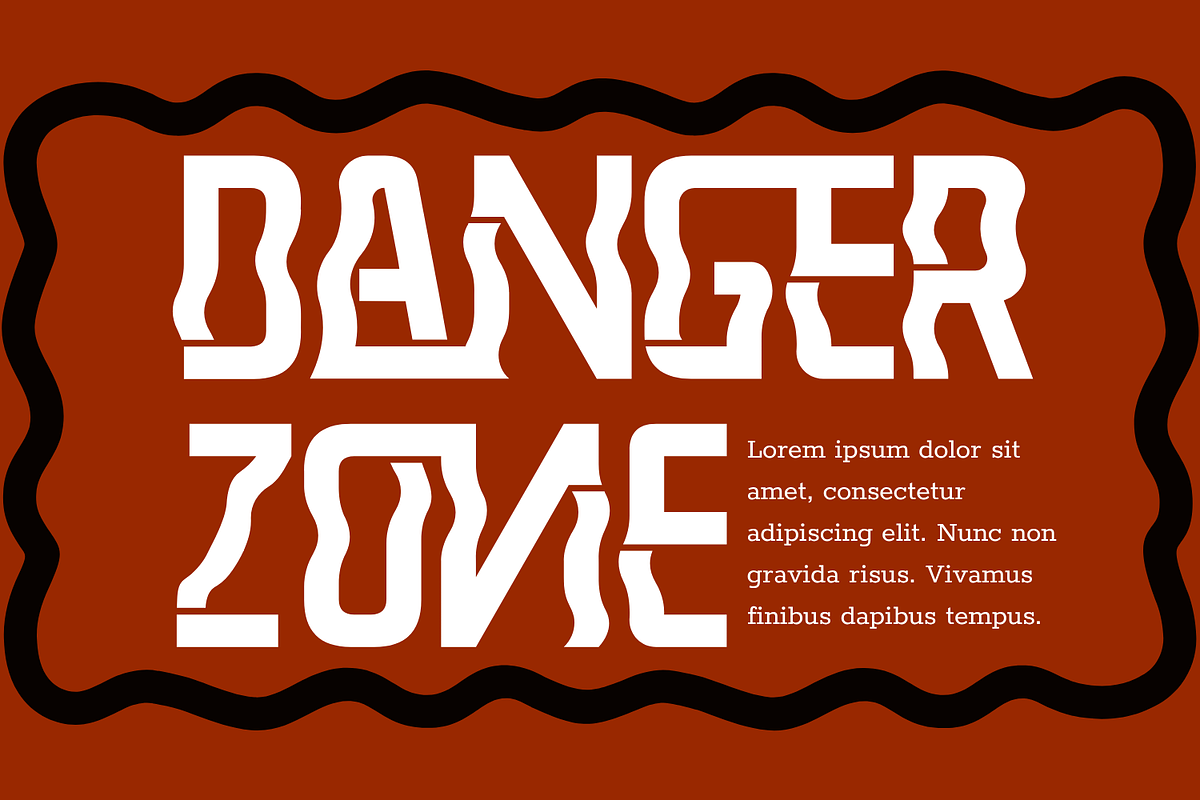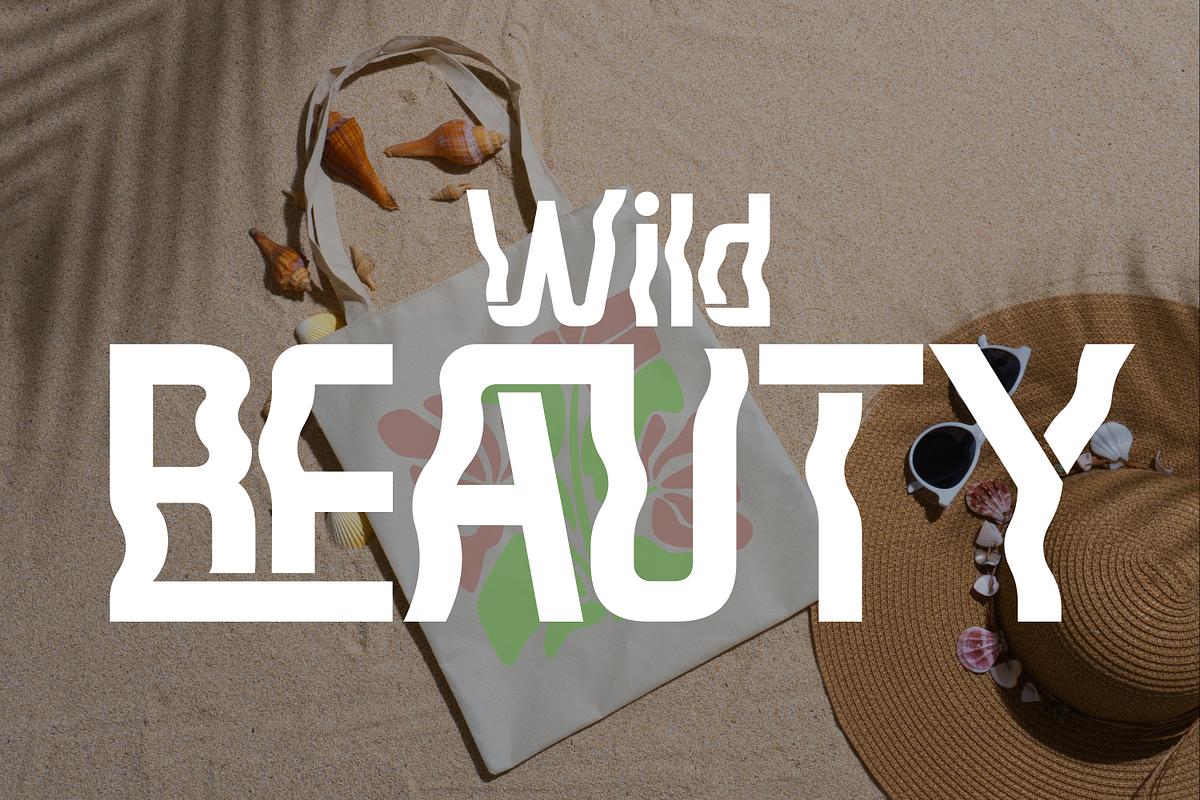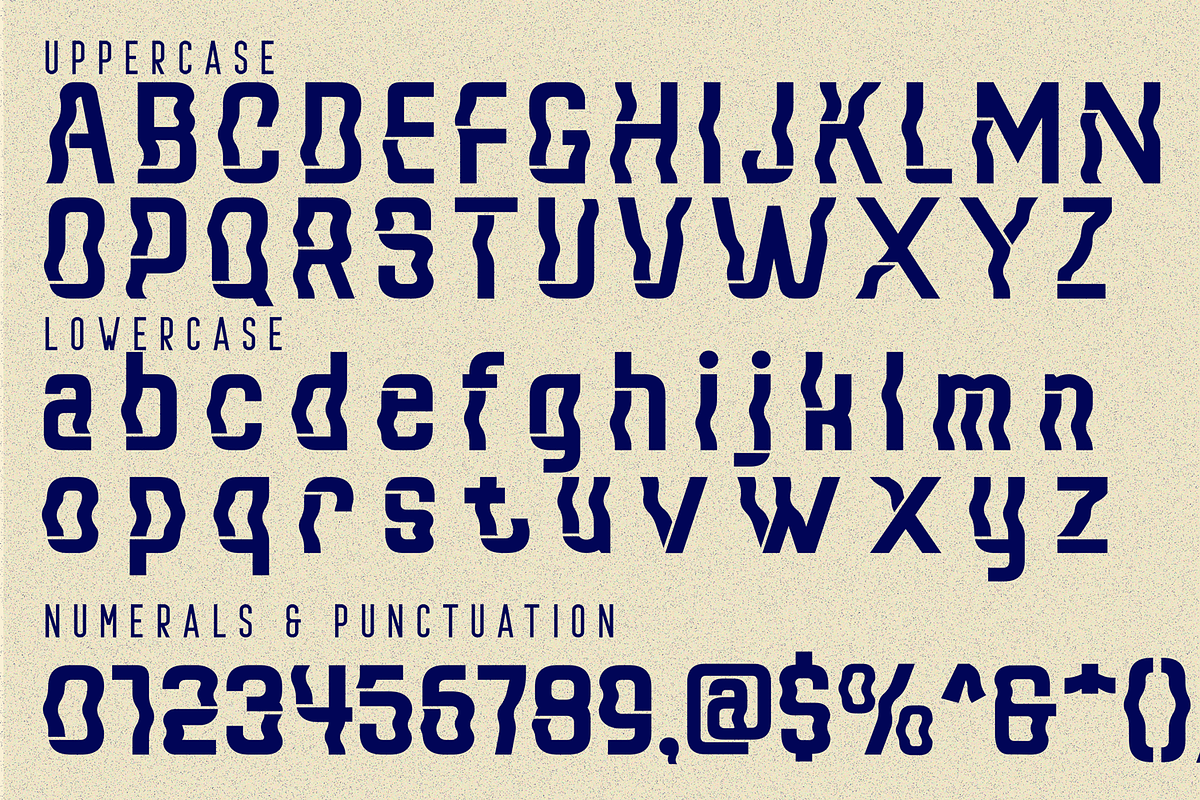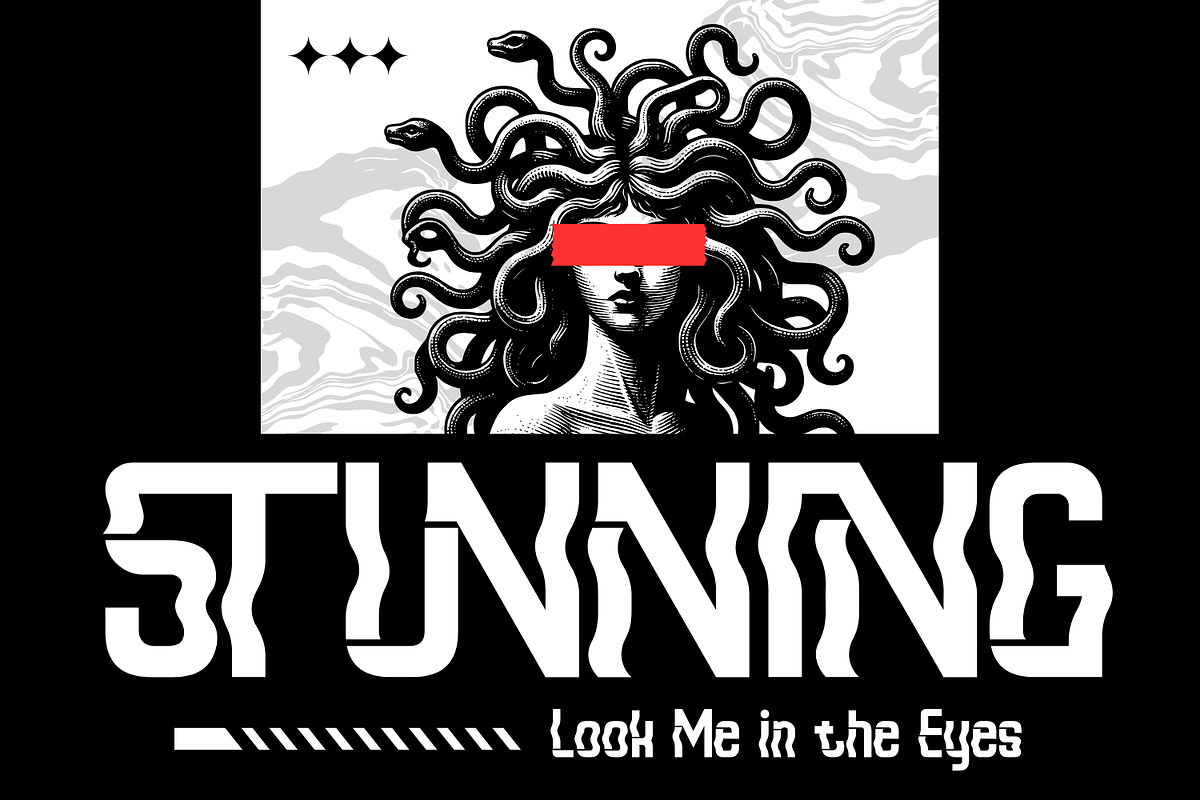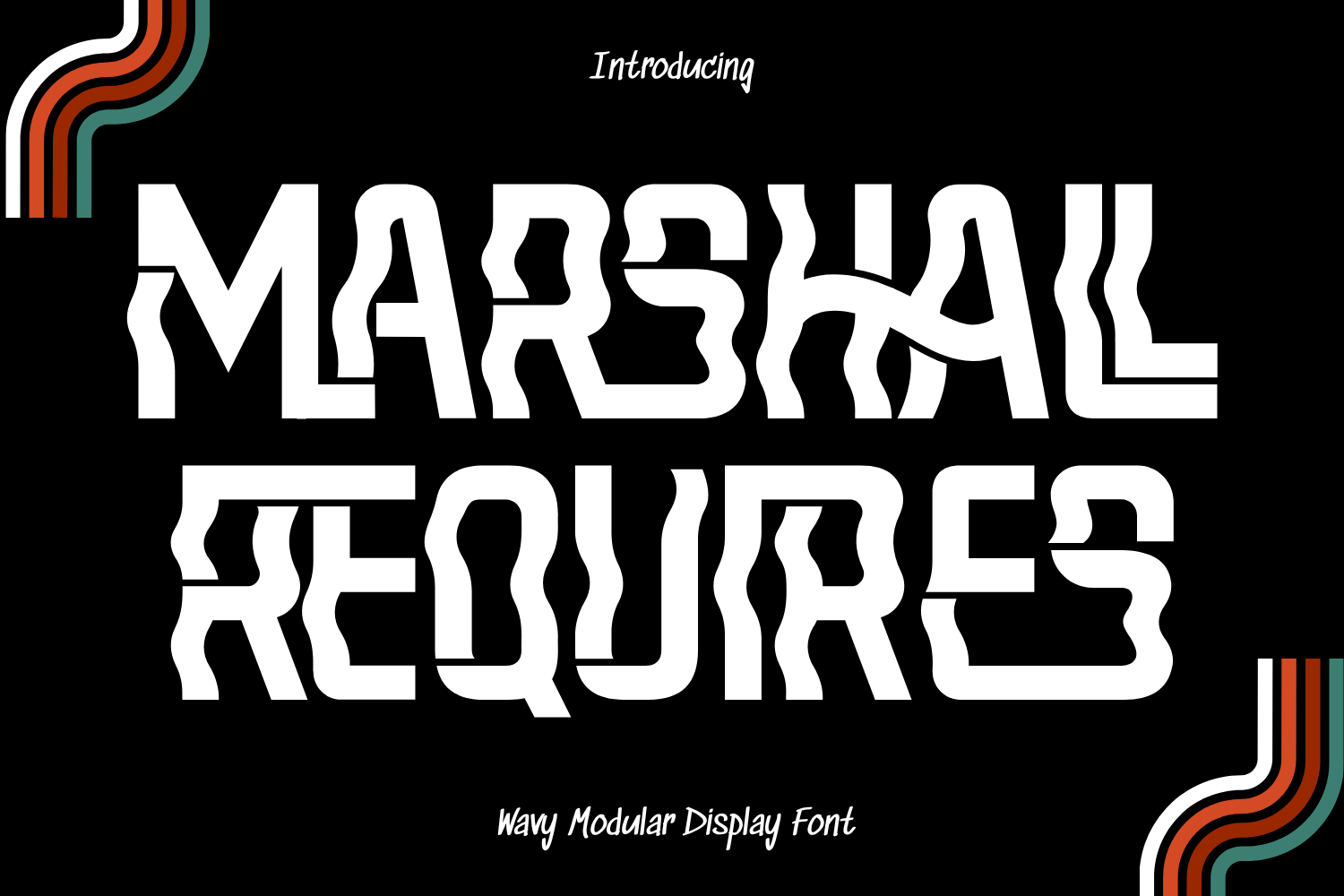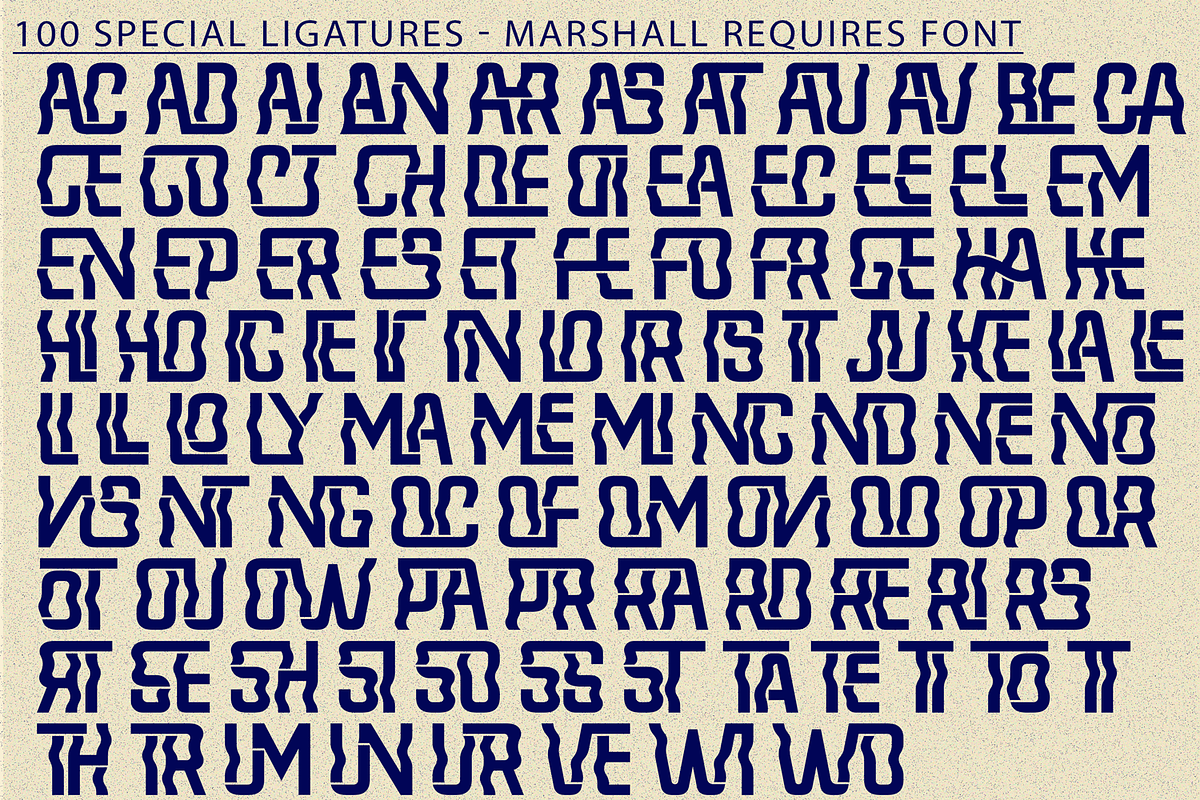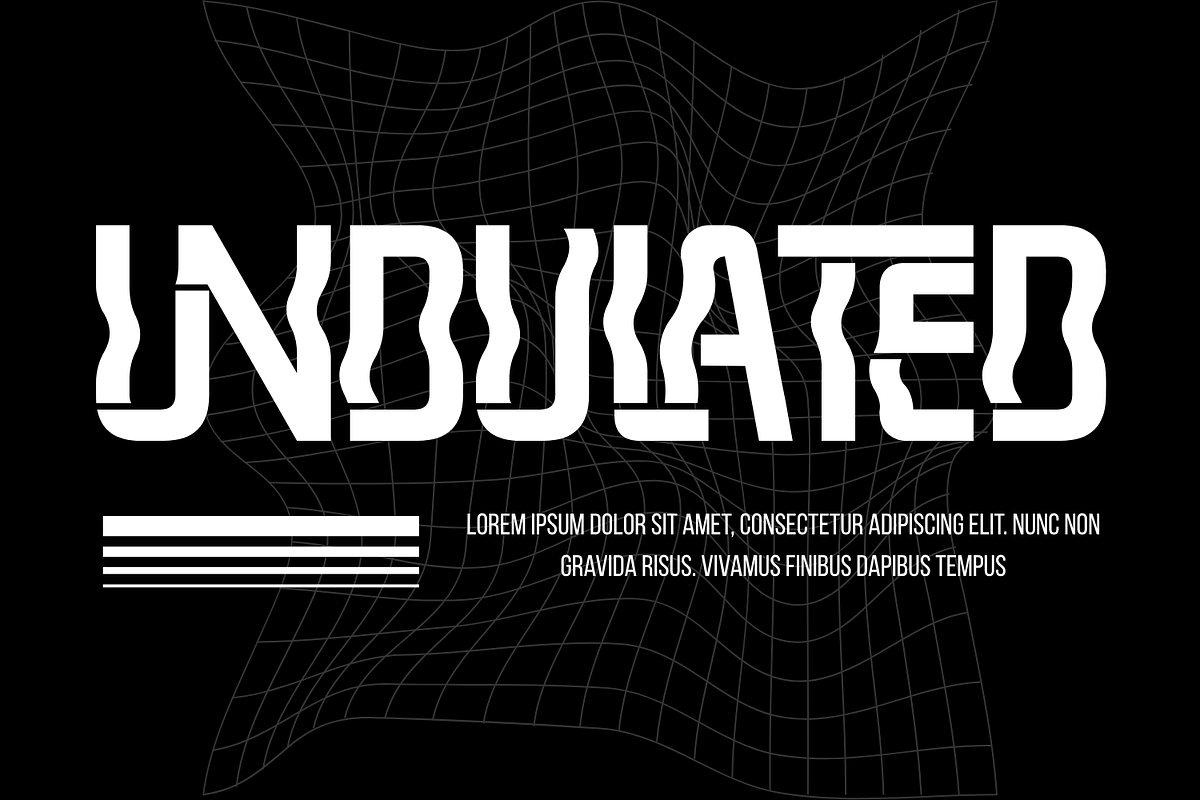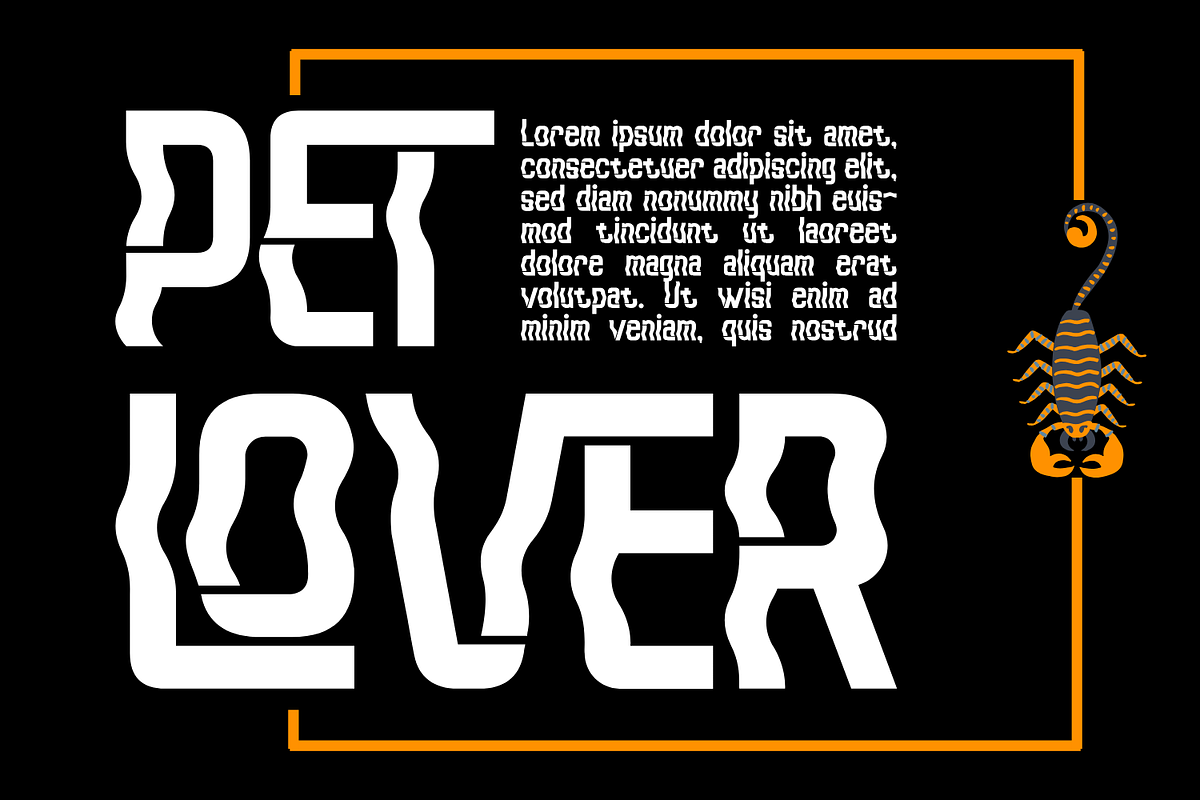
MARSHALL REQUIRES - FUTURISTIC FONT
MARSHALL REQUIRES - FUTURISTIC FONT – Experimental Wavy Modular Display Font, an avant-garde display font that merges geometric solidity with fluid wave-like distortions. Each letter is crafted from bold modular structures that flow into unexpected organic curves, creating a distinctive rhythm and a striking visual personality. Its experimental design makes every word feel dynamic, modern, and artistically abstract. Perfect for posters, album artwork, editorial titles, branding concepts, fashion campaigns, and any creative project that demands a bold, unconventional typographic voice. MARSHALL REQUIRES delivers a futuristic, high-impact look that instantly captures attention.
- Uppercase & Lowercase Letters
- Around 100 Special Ligatures & Alternates
- Accented Characters for multilingual support
About 100 ligatures combined with Stylistic Alternates Font:
AC AD AL AN AR AS AT AU AV BE CA CE CH CO CT DE DI EA EC ED EE EL EM EN EP ER ES ET FE FO FR GE HA HE HI HO IE IC IL IN IO IR IS IT JU KE LA LE LI LL LO LY MA ME MI NC ND NE NG NO NT NS OC OF OM ON OO OP OR OT OU OW PA PR RA RD RE RI RO RS RT SE SH SI SO SS ST TA TE TH TI TO TR TT UM UN UR VE WI WO